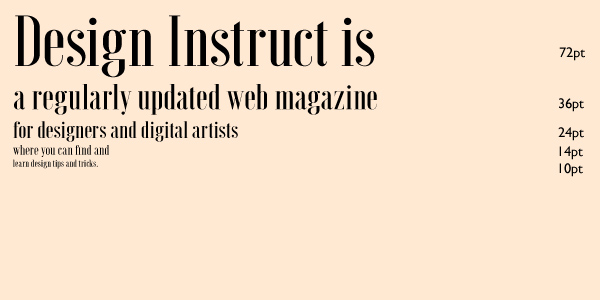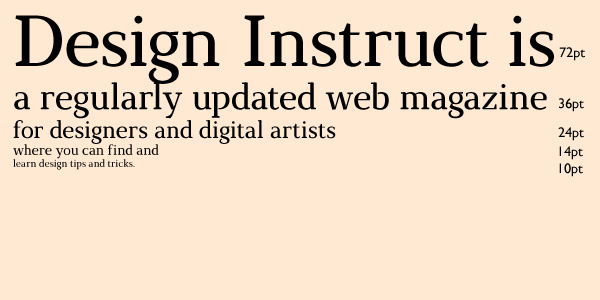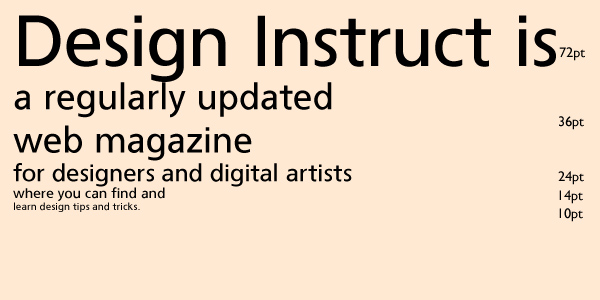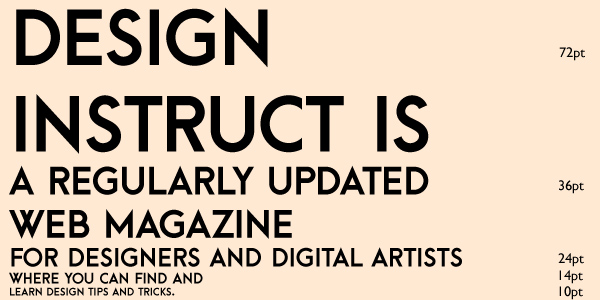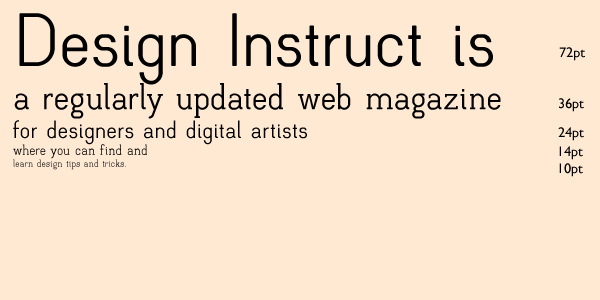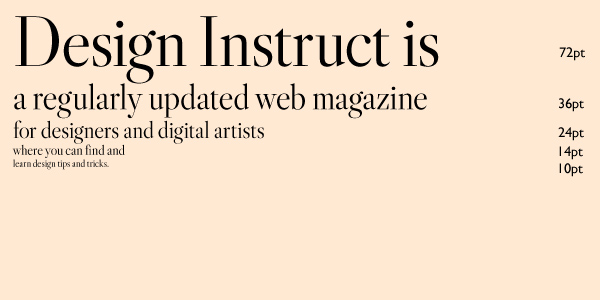
Brela
We like Brela because of its relatively high x-height giving it a very open feel and great readability. It’s a humanist style font that is very readable in small sizes but also quite striking at display sizes.
Voga
Voga works very well as a display font.
It is a condensed font that is made up of contrasting elements. It has some very interesting glyphs as seen in the lowercase ‘g.’ It has a very glamorous look and feel.
Marta
A very well-made font, Marta’s wedge serifs lend it a great readability.
A great feature of this font is that its italics are upright which isn’t seen very often in font families. It definitely lends a certain uniqueness to any composition.
Born
Born is another great serif font with a few humanist and calligraphic elements.
The x-height is generous which makes it very readable in body text while also exhibiting just enough of a subtle contrast in its strokes to make it look a bit classic while retaining a modern feel. (You must “pay with a post” to social media about this font to access the download link.)
DDM
DDM is a very clean and open san-serif with great readability. (You must “pay with a post” to social media about this font to access the download link.)
Arca Majora
Arca Majora is a sans-serif display font with a very contemporary feel. Only uppercase and number glyphs, along with some punctuations are included.
Meticulous Ariel
Its creator takes inspiration from the world of fashion and indeed has a created a very elegant font. This font works really well as a display font.
Mish Mash
This is a pretty interesting font as it has serif and sans serif fonts which is probably why it’s called “Mish Mash.”
Luthier
It looks great in display sizes as well as in text. The serifs are sharp with very interesting angles that make it look and feel modern but also can be used in more traditional applications.
Libre Caslon
Libre Caslon is a very interesting free font.
First of all, it is technically still in development and the creators have only released ‘beta” versions. It looks tall and condensed and it has a perfectly executed contrast within the font. It works amazingly as a display font as well as in body sizes.
It seems the creators have dubbed this Caslon font as the “sexy” Caslon and we couldn’t agree more. This is definitely a font we’re keeping an eye on.